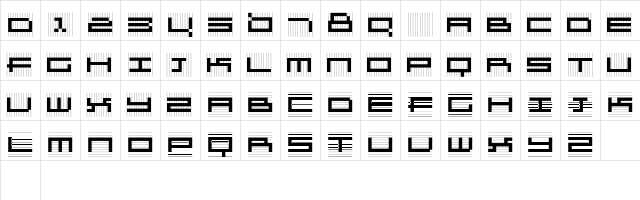
KL1_GridZebra Regular Font Preview
KL1_GridZebra Regular
Design Context for KL1_GridZebra Typeface
KL1_GridZebra is a composed and adaptable typeface that performs quietly and consistently across a wide range of design contexts.